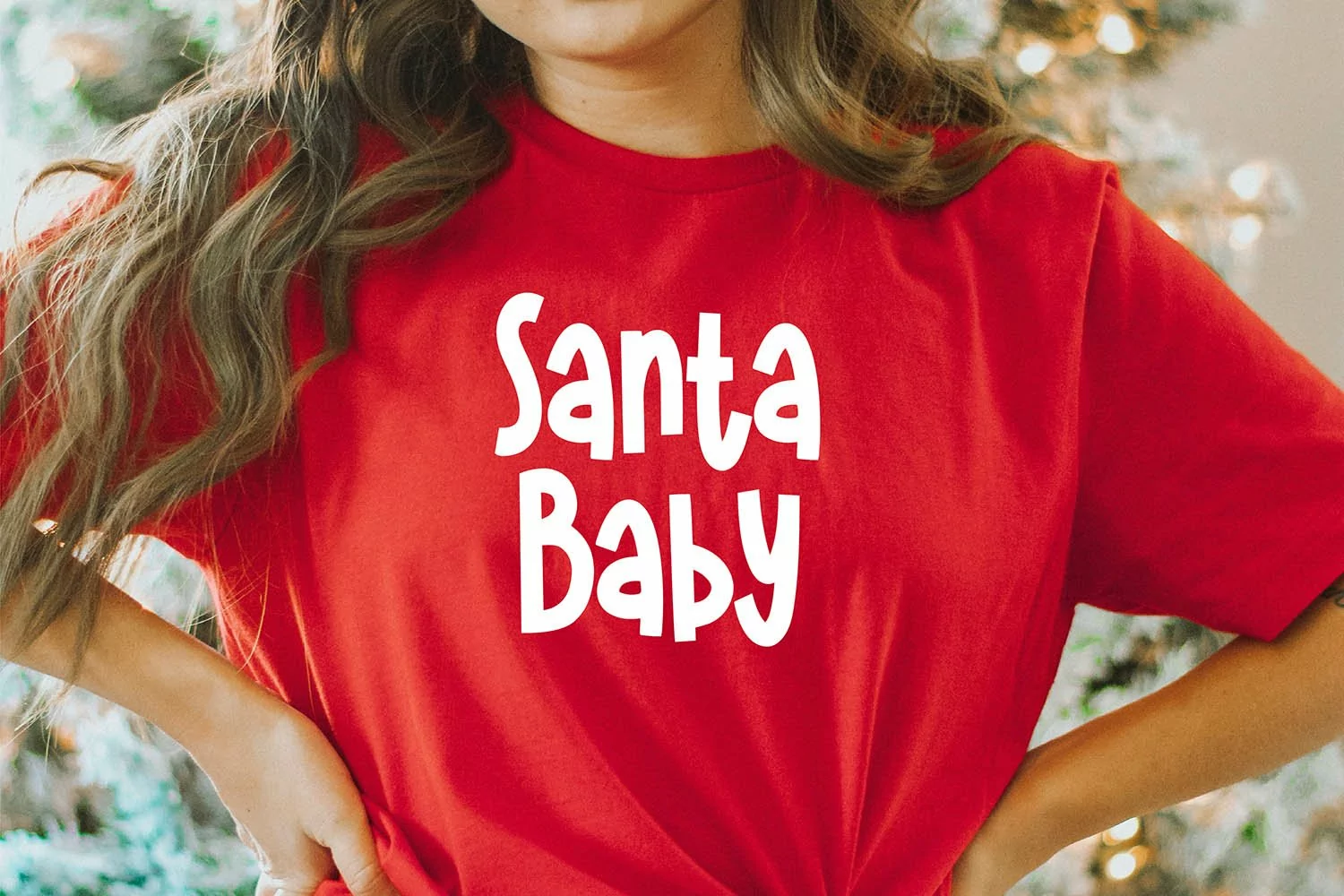
"Santa's Toy Bag" Display Christmas Font
Santa's Toy Bag is perfect for your holiday projects. Use it for Christmas cards, winter crafts for decor and more! This font includes upper and lowercase characters, numbers, and basic punctuation.